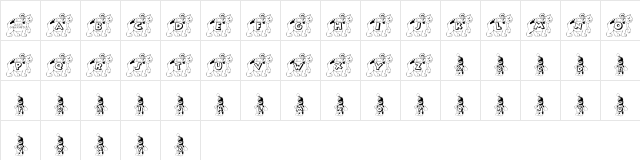
POLARFRI_KG Regular
Design Context for POLARFRI_KG Typeface
POLARFRI_KG is a composed and adaptable typeface that performs quietly and consistently across a wide range of design contexts.